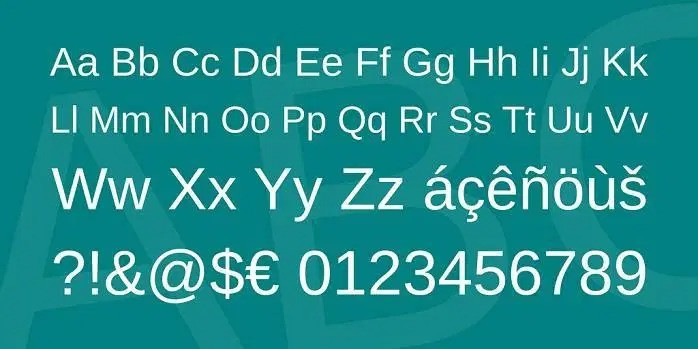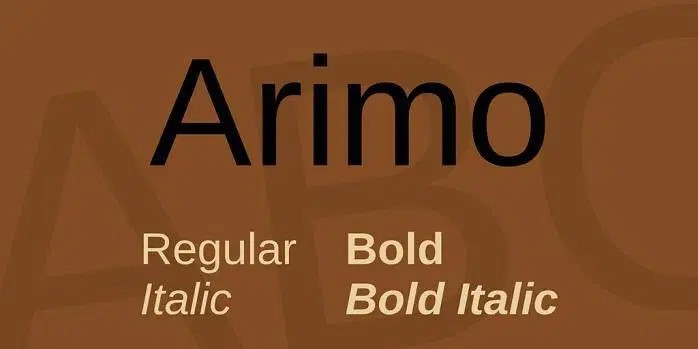
Arimo Font Family
Arimo Sans Serif Font was created by Steve Matteson as an innovative, refreshing sans serif design and style which is metrically compatible with Arial™. Arimo presents enhanced on-screen readability qualities and also the pan-European WGL character set and solves the needs of developers in search of width-compatible fonts to address document portability across platforms.